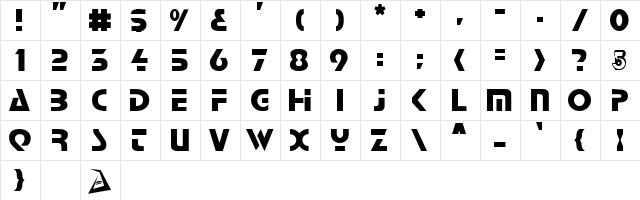
Babylon Industrial Normal
| Copyright | This font is based on the background font used in the television show Babylon 5. Pretty to look at, but kinda hard to read if you're trying to find the local escape pod entrance in a panic. :) |
Design Context for Babylon Industrial Typeface
Babylon Industrial is a composed and adaptable typeface that performs quietly and consistently across a wide range of design contexts.